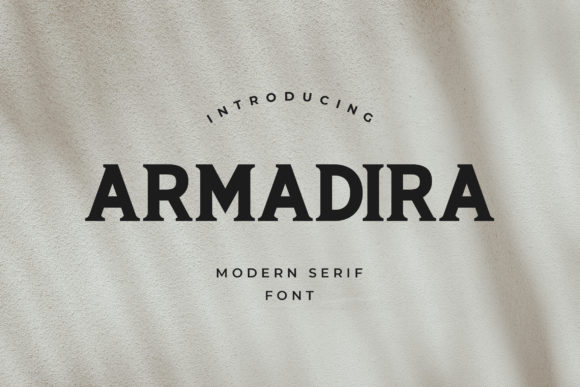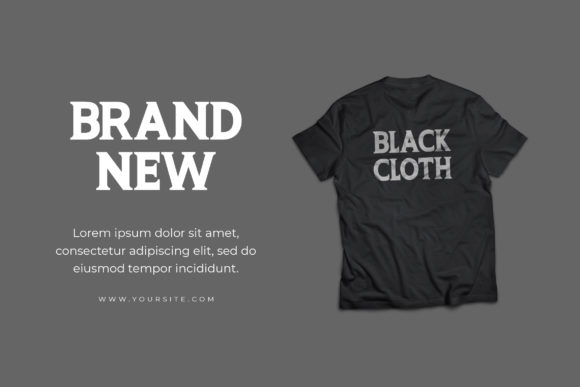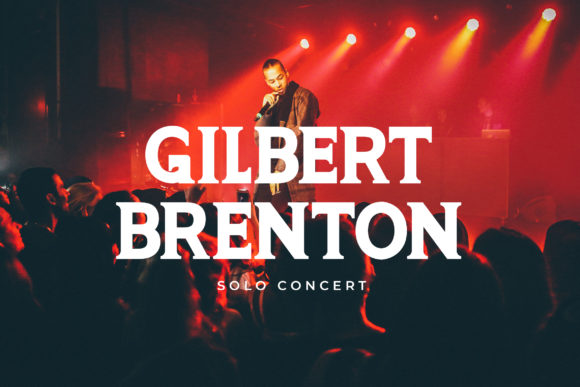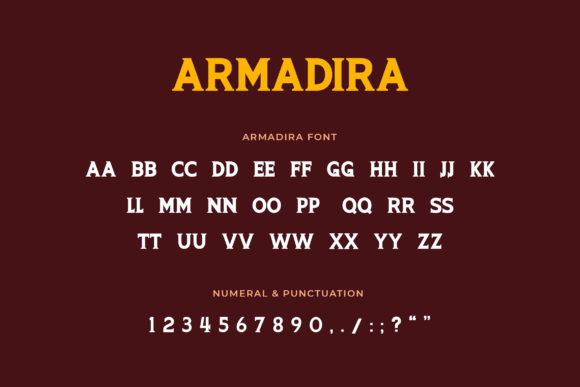
Armadira
Armadira: A Casual and Versatile Slab Serif Font
Armadira is a distinctive slab serif font that combines a casual aesthetic with versatility. This typeface offers designers a powerful tool for creating impactful typography across a wide range of design contexts.
Key Features of Armadira
• Casual Design: Features a relaxed and approachable appearance
• Slab Serif Structure: Incorporates the characteristic thick, rectangular serifs typical of slab serif fonts
• Versatile Application: Suitable for use on busy backgrounds or as standalone headlines
• Outstanding Appearance: Designed to look exceptional in any context
Ideal Uses for Armadira
Armadira’s unique characteristics make it particularly well-suited for:
• Eye-catching headlines and titles
• Designs with busy or complex backgrounds
• Branding projects requiring a casual yet impactful look
• Social media graphics and digital content
• Packaging design for products targeting a relaxed demographic
When incorporating Armadira into your designs, consider the following tips:
• Experiment with the font on various background types to showcase its versatility
• Consider using it for both headlines and body text to create a cohesive casual look
• Take advantage of its ability to stand out in busy designs
Armadira is an excellent choice for designers looking to add a casual and versatile slab serif to their typographic toolkit. Its ability to stand out in any context makes it a valuable asset for various design projects. Whether you’re working on logo designs, creating layouts for busy backgrounds, or developing standalone headlines, Armadira offers the perfect blend of casualness and impact.
Explore how Armadira can bring a casual and outstanding edge to your design projects. From eye-catching headlines to designs with complex backgrounds, this font provides the tools to create impactful and memorable typography that stands out in any context.